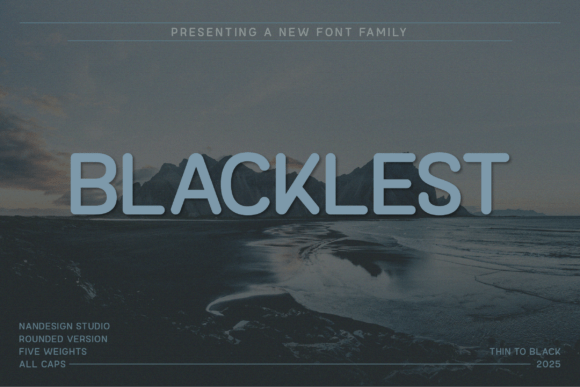
Unlocking the Power of Blacklest Rounded Font
Have you ever stared at a blank design canvas, feeling the weight of creativity on your shoulders? The pressure to craft a visually stunning identity that captures your brand’s essence can be overwhelming. But what if you had the perfect tool to elevate your designs and give them a boost of confidence?
Enter Blacklest Rounded Font, a modern sans serif font family designed to bring clarity, warmth, and bold personality to your creative projects. With its soft-rounded edges and sleek, geometric construction, this font is both highly legible and aesthetically balanced. The Blacklest Rounded Font family was created to help designers, crafters, and brand creators achieve a clean yet friendly visual identity.
Whether you’re building a logo, packaging design, social media visuals, or high-impact headlines, the Blacklest Rounded Font adapts beautifully, adding a polished, confident touch to your work. Its five versatile weights – Thin, Light, Regular, Bold, and Black – offer endless possibilities for experimentation and expression.
Key Features of Blacklest Rounded Font
- Unique Characteristics: Blacklest Rounded Font features a distinctive rounded design with a subtle flair at the ends of the strokes, giving it a modern and sophisticated look.
Designer Review: Blacklest Rounded Font
Overall, I’m impressed with the Blacklest Rounded Font. It’s a clean and modern sans-serif font that works well in various digital applications.
What I love about Blacklest Rounded is its versatility. It’s perfect for creating a minimalist and sleek visual identity ✨. Here are some of its standout features:
- Smooth rounded edges that add a touch of elegance
- Clear and legible typography, even at small font sizes
- Works well in both digital and print media
However, I do have some concerns about its limitations ⚠️. Here are a few:
- It may not be the best choice for formal or traditional applications, as its rounded edges can come across as too casual
- The font may not be as customizable as some other options, which could limit its flexibility
Despite these limitations, I think Blacklest Rounded is a solid choice for designers looking for a clean and modern font. Its versatility and clear typography make it a great option for a wide range of applications.
Blacklested Rounded Font Practical Application Guide
To get the most out of Blacklested Rounded Font, use it for:
- Branding and logos, as it adds a touch of modernity and sophistication.
- Titles and headings, as it grabs attention and conveys importance.
- Text-based designs, as it provides a clean and readable aesthetic.
Blacklested Rounded Font is commonly used in:
- Modern and minimalist designs.
- Creative and artistic projects.
- Corporate and professional branding. Alternatives to Blacklest Rounded Font
- Use the font for headings and subheadings to add a sense of adventure and exploration.
- Combine with vibrant colors and quirky illustrations to create a visually appealing design.
- Pair Blacklest Rounded Font with a clean and minimalistic layout to emphasize the text.
- Use bold fonts and italics to add emphasis and create visual hierarchy.
- Use the font for logotypes and headings to create a cohesive brand image.
- Combine with a limited color palette and clean typography to create a sophisticated look.
- Pair Blacklest Rounded Font with a sans-serif font for body text to create a clean and modern look.